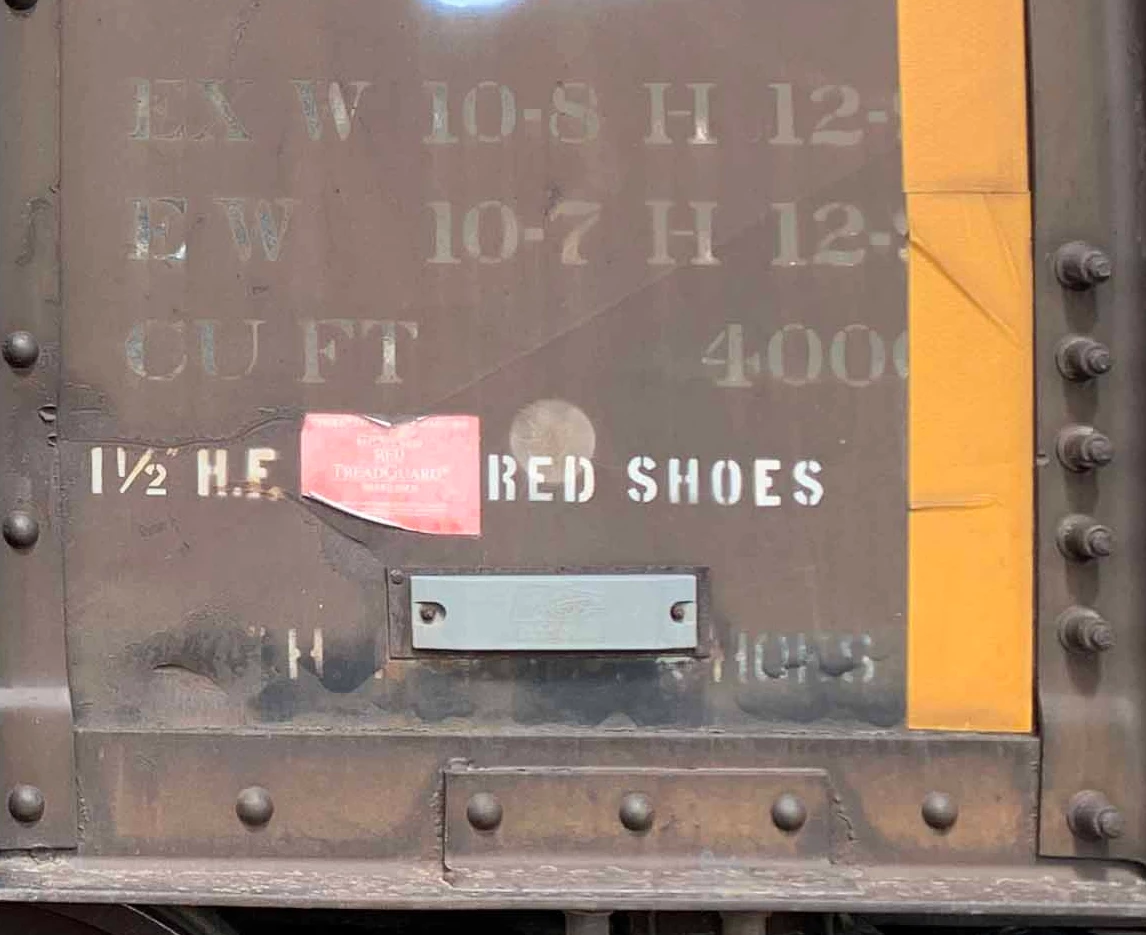
Font used on the Chicago Northwestern railroad cars.
I'm searching for a font used on some Chicago Northwestern railroad cars.  I don't know the name of the font, or if it's even available to download on Adobe Fonts.  Here's a photo (just the top 3 lines of text).  This railcar was built in 1976.  Thank you.
They look like physical stencils (sheets with letter shapes cut into them, then painted over). They could have been in use since before computer fonts were invented, and would have been stamped out in a factory, probably based on handmade designs. There ARE plenty of stencil fonts for computers that give the same idea, but they won't be identical.